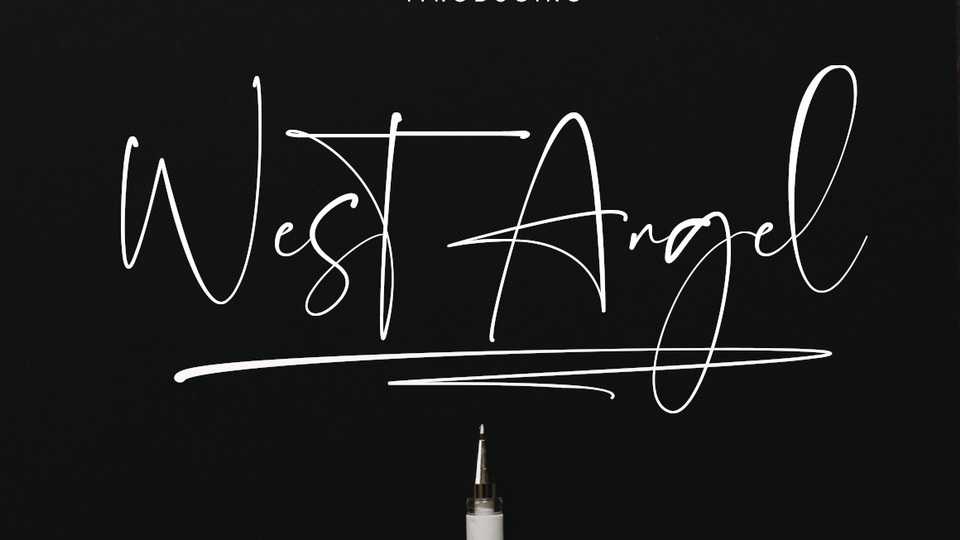
Download West Angel font, an exquisite signature style handwritten typeface, masterfully designed to become a true favorite. West Angel maintains its classy calligraphic influences while feeling contemporary and fresh.
Designer: RasdiType